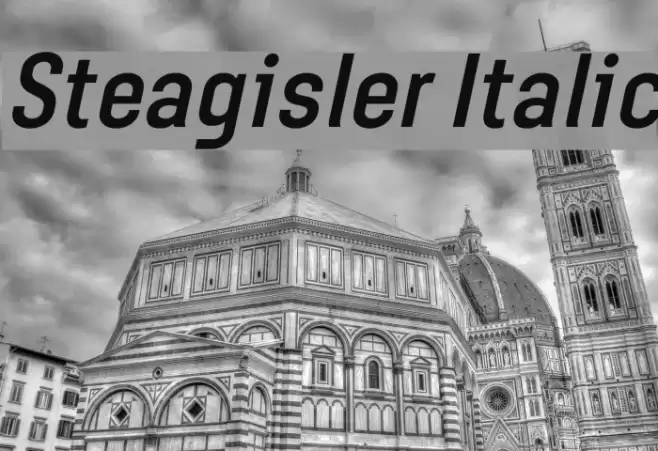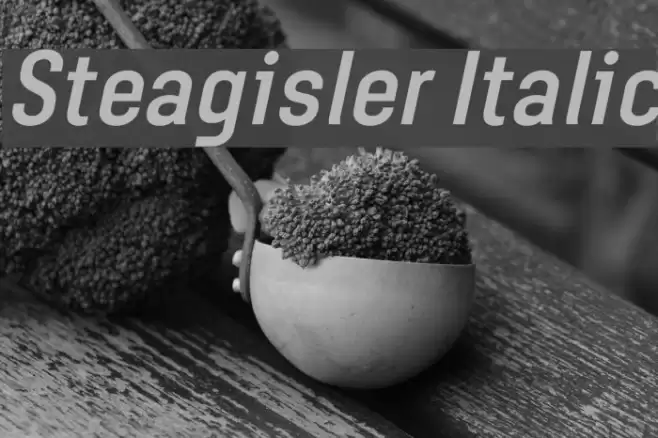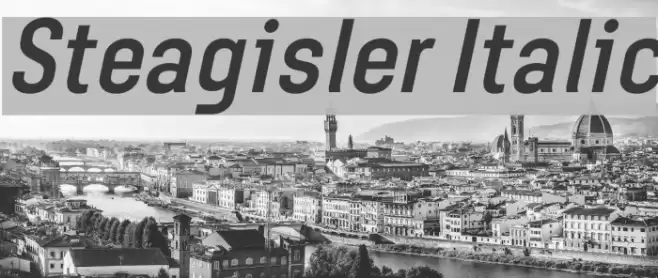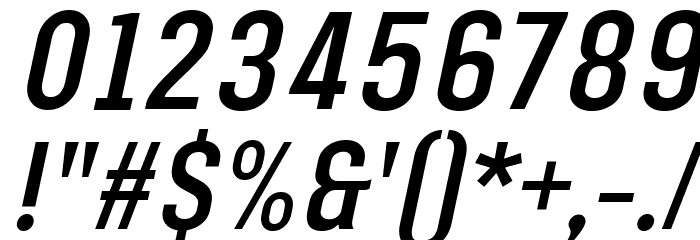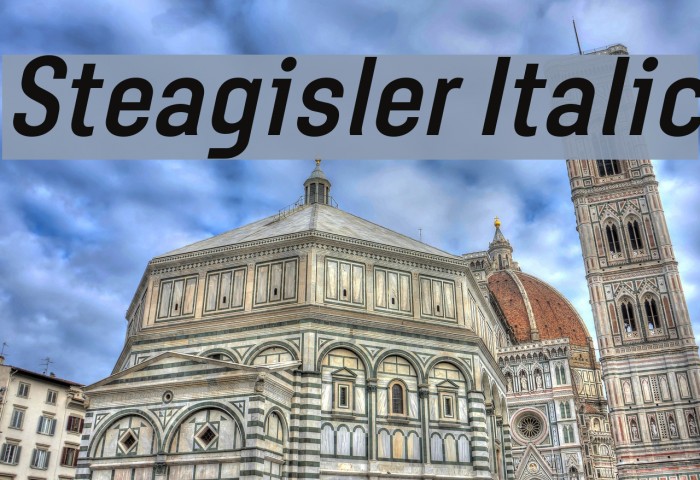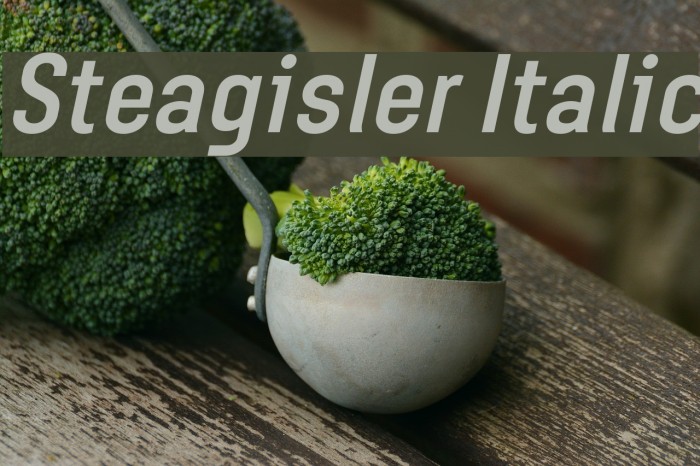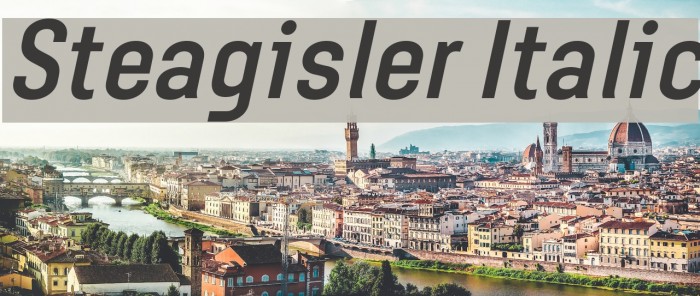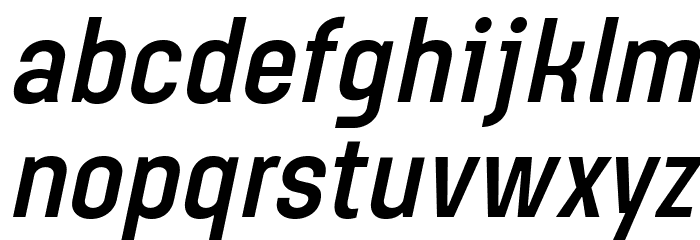
Steagisler Italic Font
Steagisler Italic Description
This font features a sleek and modern italic style with a slight forward slant, giving it a dynamic and energetic appearance. The characters are well-proportioned with a consistent stroke width, contributing to a clean and professional look. The uppercase letters are bold and assertive, while the lowercase letters maintain a harmonious flow. The numerals are clear and legible, making them suitable for various applications. Special characters are included, providing versatility for different design needs. Overall, this font exudes a contemporary feel, making it ideal for modern branding and design projects.
A sleek, modern italic font with a dynamic and professional appearance from Uncategorized fonts.